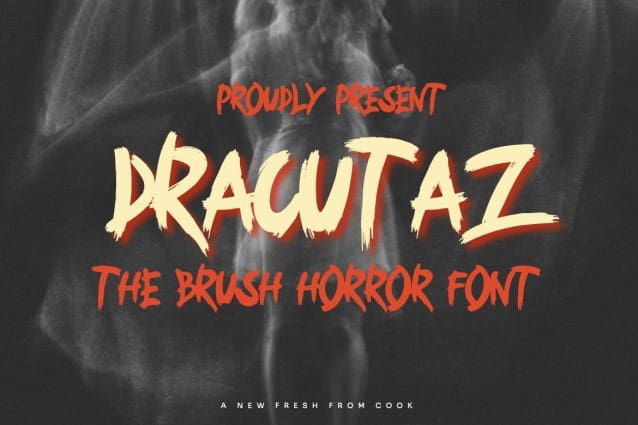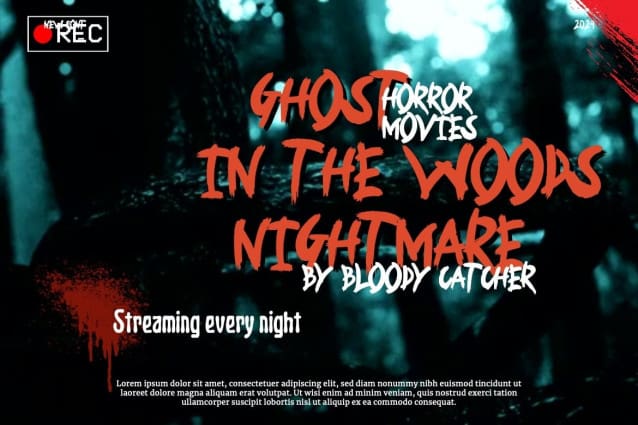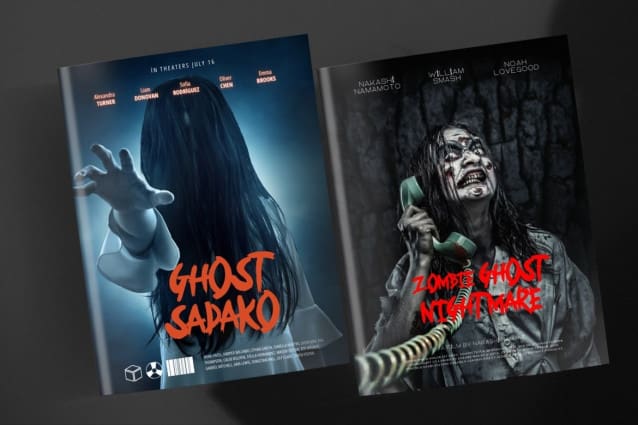
Dracutaz Brush Font
Dracutaz Brush Font by Dhabee 10,878 downloads
Dracutaz Brush Font
Dracutaz Brush Font – Brush Horror Font. This font is a delicate, elegant and flowing handwritten font. It has a beautiful and unique blend of ligatures per letter, so the authors have composed it with a slight swirling inlay, so that a modern font is formed and ready to make a splash by adding an elegant and unique touch to your next design project. Add it to your most creative ideas and watch how it brings them to life!